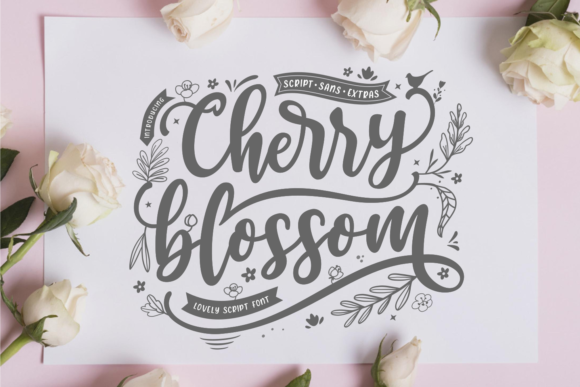
Introducing Cherry Blossom Font: Elevate Your Designs with a Lovely Trio
The world of typography is vast and diverse, offering a multitude of font styles to suit every design need. Among these, the Cherry Blossom Font stands out as a unique and versatile trio that can add a touch of elegance and whimsy to your creations. This expertly designed font combines a sans serif, script, and dingbats font, making it a comprehensive toolkit for designers looking to make their projects stand out.
Key Features of Cherry Blossom Font
- Trio Font Style: The Cherry Blossom Font comes with three distinct styles – a clean sans serif font, an elegant script font, and a fun dingbats font. This trio allows designers to experiment with different looks and feels within a single font family.
- PUA Encoding: One of the standout features of the Cherry Blossom Font is its PUA (Private Use Area) encoding. This means that all glyphs and swashes are easily accessible, giving designers the flexibility to create unique and intricate designs without any hassle.
- Ease of Use: Despite its sophisticated features, the Cherry Blossom Font is incredibly easy to use. Designers can quickly access and apply the various glyphs and swashes, making the design process smooth and efficient.
- Versatility: Whether you’re working on a branding project, a website design, or marketing materials, the Cherry Blossom Font can adapt to any style or theme. Its versatility makes it an excellent choice for a wide range of design applications.
Idea Generation with Cherry Blossom Font
The beauty of the Cherry Blossom Font lies in its adaptability. Here are some ideas where this font can truly shine:
- Wedding and Event Invitations: The elegant script and dingbats can add a touch of sophistication and charm to wedding invitations, save-the-date cards, and other event-related materials.
- Branding and Logos: The sans serif font’s clean and modern look makes it perfect for logos and branding projects that require a professional yet approachable feel.
- Social Media Graphics: The dingbats and swashes can be used to create engaging social media graphics that stand out in crowded feeds.
- Web Design: The Cherry Blossom Font can be a great addition to website designs, especially for blogs, portfolios, and e-commerce sites looking for a friendly and approachable vibe.
Maximizing the Potential of Cherry Blossom Font
To get the most out of the Cherry Blossom Font, here are some tips and tricks:
- Mix and Match: Don’t be afraid to combine the different styles within the font. Mixing the sans serif with the script and dingbats can create visually interesting and dynamic designs.
- Experiment with Colors: The Cherry Blossom Font looks great in various colors. Experiment with different palettes to find the perfect match for your design.
- Utilize Swashes and Glyphs: Take advantage of the PUA encoding to explore the range of swashes and glyphs available. These can add a personal touch to your designs.
- Pair with Other Fonts: For added versatility, try pairing the Cherry Blossom Font with other fonts. The sans serif font can work well with modern fonts, while the script can complement more traditional typefaces.
Why Choose Cherry Blossom Font?
In a world where design trends are constantly evolving, having a font that can adapt and stand the test of time is invaluable. Here are a few reasons why the Cherry Blossom Font should be your go-to:
- Unique and Memorable: The combination of sans serif, script, and dingbats makes the Cherry Blossom Font unique and memorable, helping your designs to stand out.
- Highly Versatile: Its adaptability means you can use it across various projects, from digital to print, without worrying about it looking out of place.
- Easy to Use: The PUA encoding and user-friendly design make it accessible to designers of all skill levels.
- Constantly Inspiring: The range of glyphs and swashes ensures that you will always find something new and inspiring to incorporate into your designs.
The Cherry Blossom Font is more than just a typeface – it’s a comprehensive design toolkit that can elevate your projects to new heights. Its unique combination of styles, ease of use, and versatility make it an excellent choice for designers looking to create stunning and memorable designs. Whether you’re a seasoned professional or just starting out, the Cherry Blossom Font is sure to inspire and enhance your creative process.